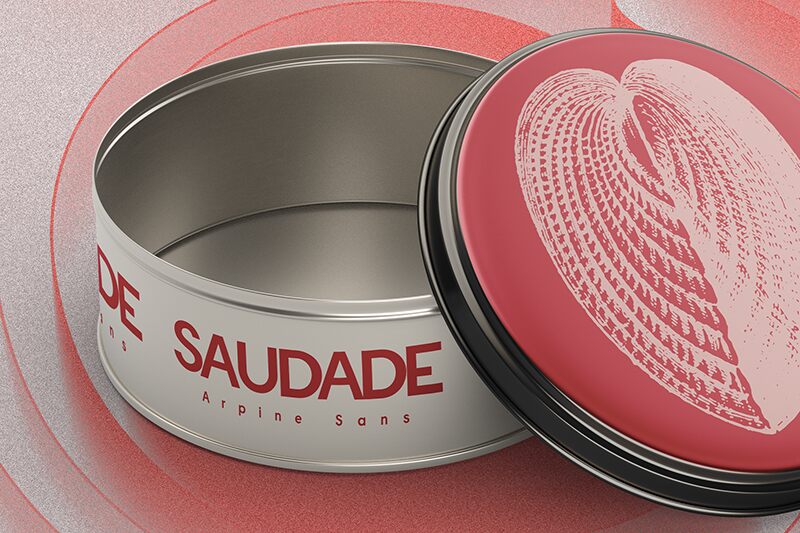
CF Arpine font by Creatifont Studios is a clean sans serif typeface with minimalist, geometric influences. The letters are well-balanced and carefully arranged for the best reading experience possible and for instant connection to the designs created using it.
Include it in your upcoming website projects, mobile apps UX/UI, layouts, covers, headlines, posters, magazines and catalogs.